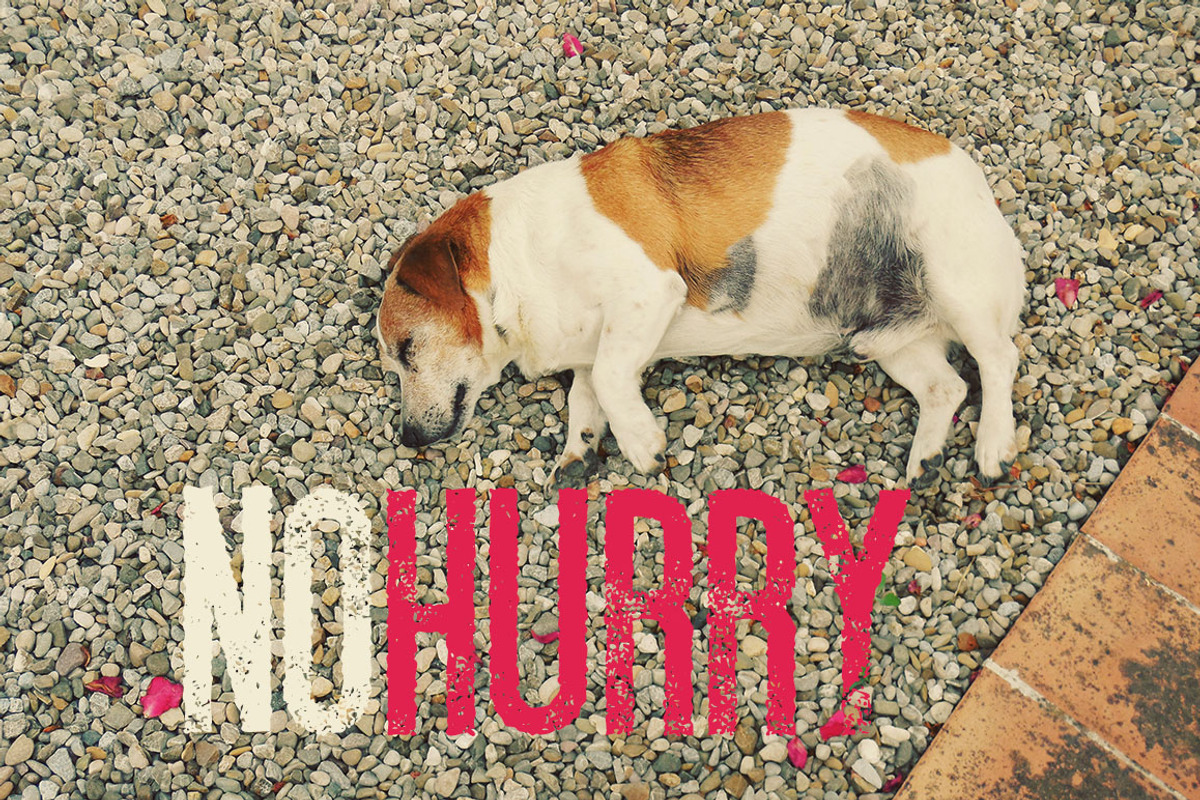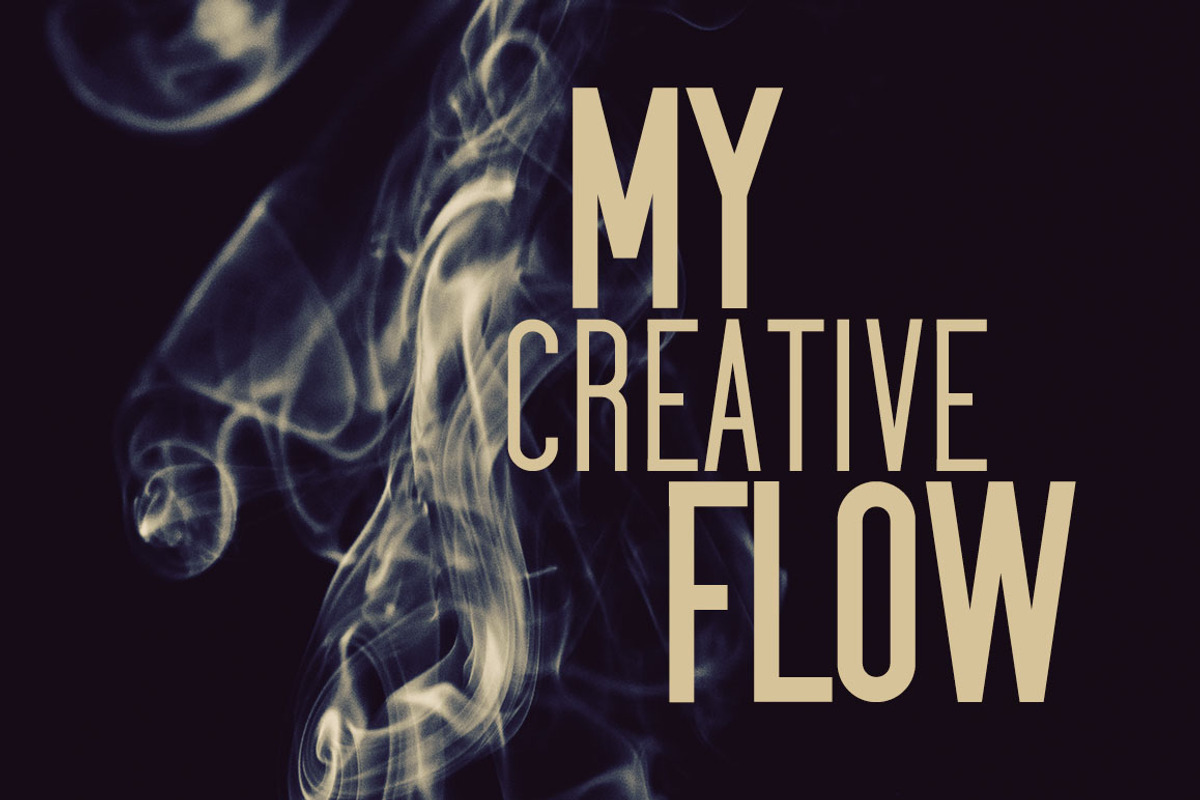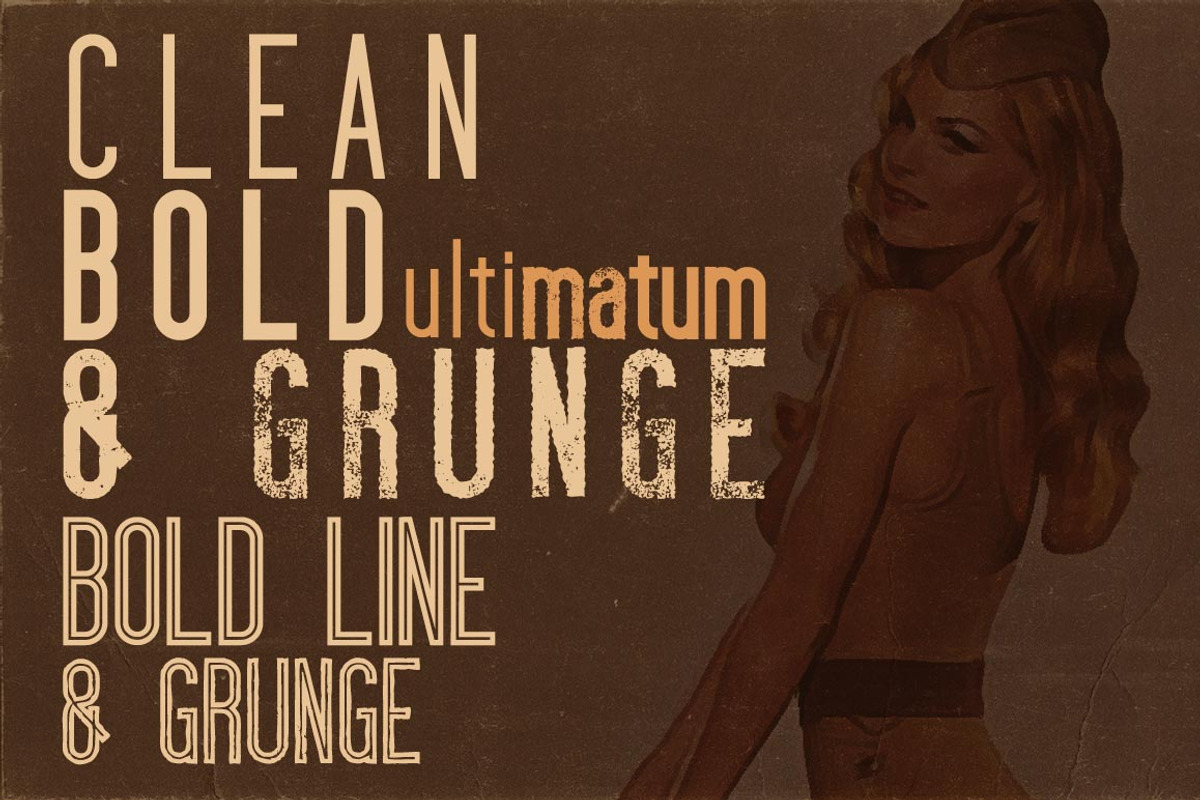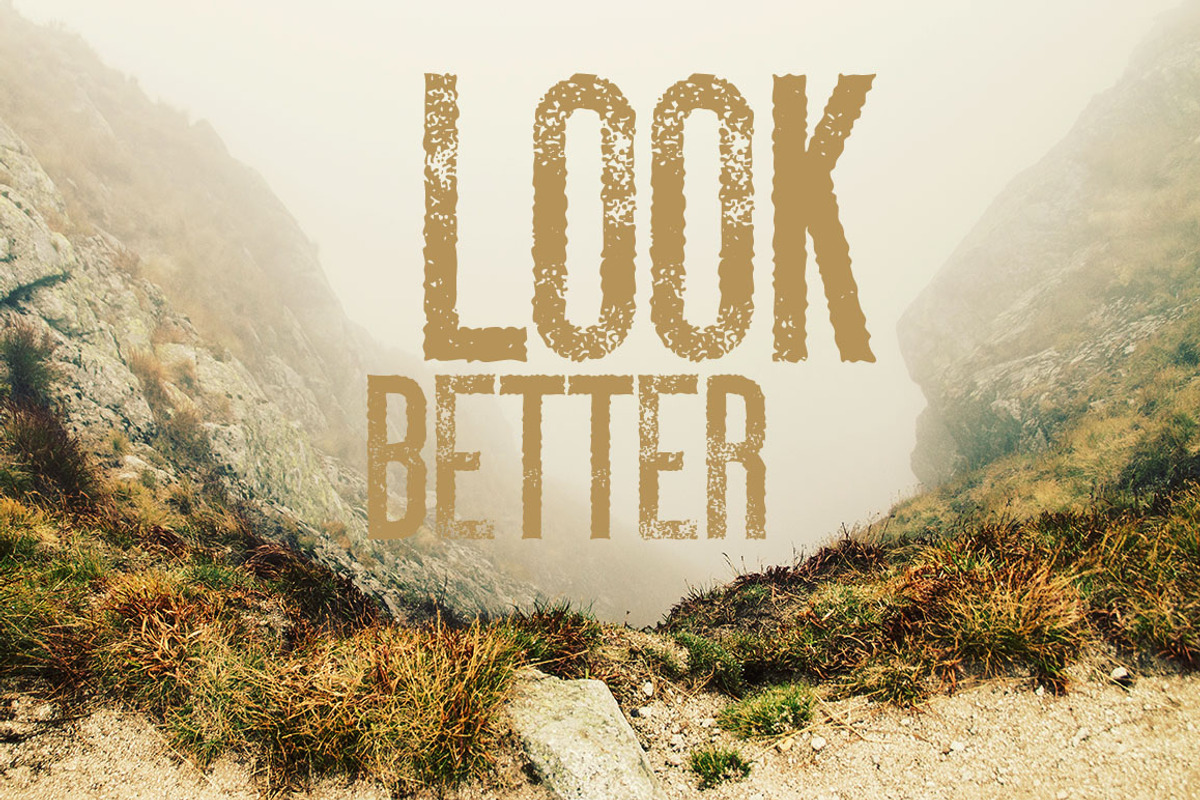
Ultimatum Font
Ultimatum Font by Cruzine is a font selected for branding, posters, packaging, typography.
Why Ultimatum Font is worth a look
Ultimatum Font by Cruzine fits naturally into Branding, posters, packaging, typography.